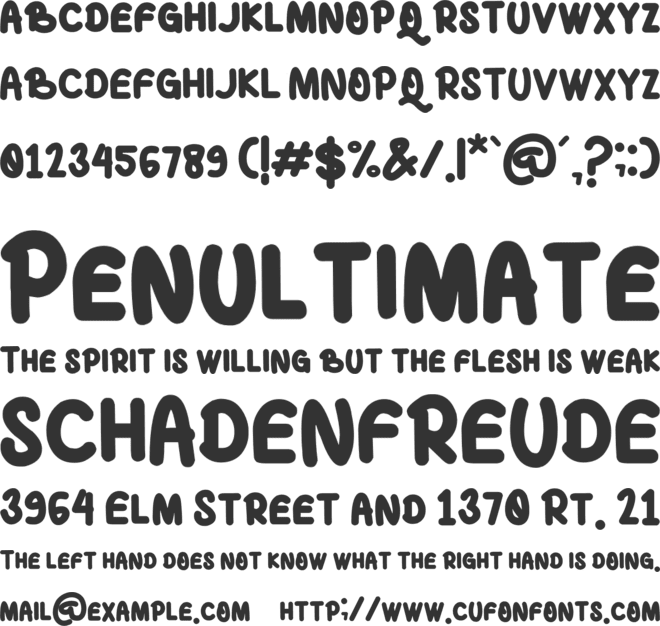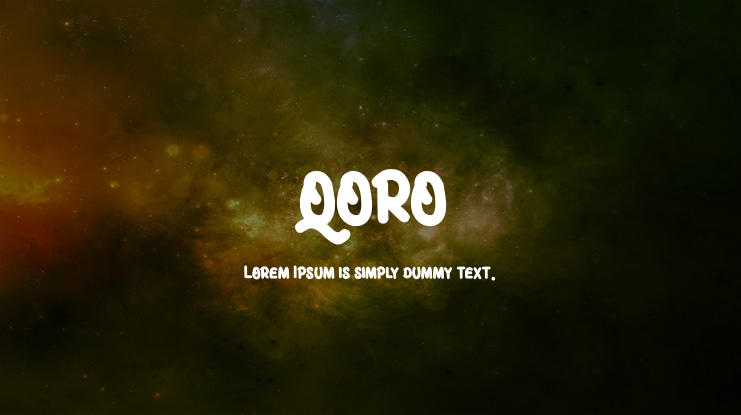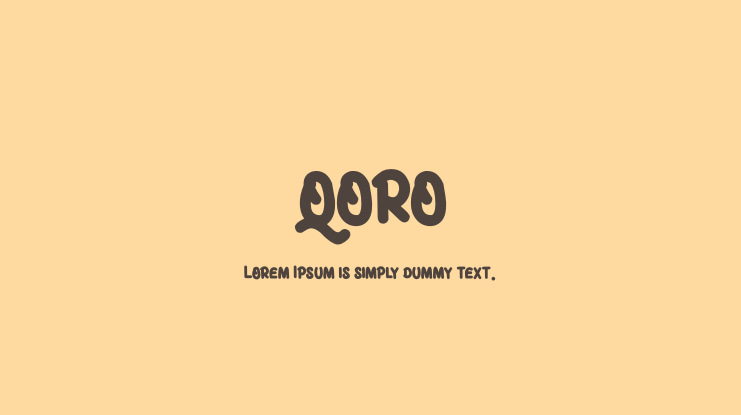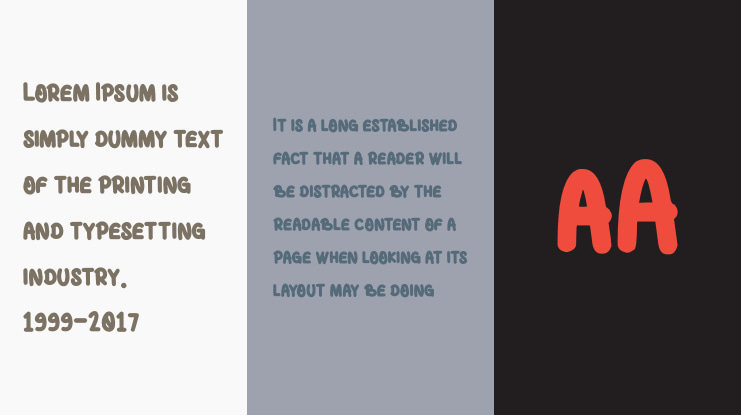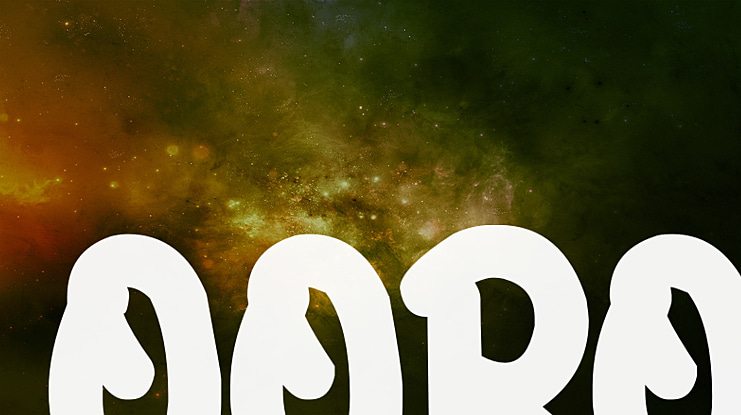
QORO Font Family
Lastype
Qoro is a thick lettered and cool display font. Simple but with a strong visual effect, this font will instantly make your creation more appealing than any others.